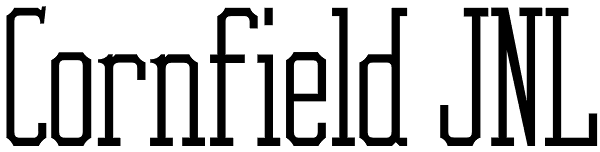
Cornfield JNL
Cornfield JNL was inspired by lettering found on a 1950s box of popcorn. The unusual character shapes add a nostalgic, folksy charm from the Heartland or a slightly Western feel to projects reflecting simpler times.